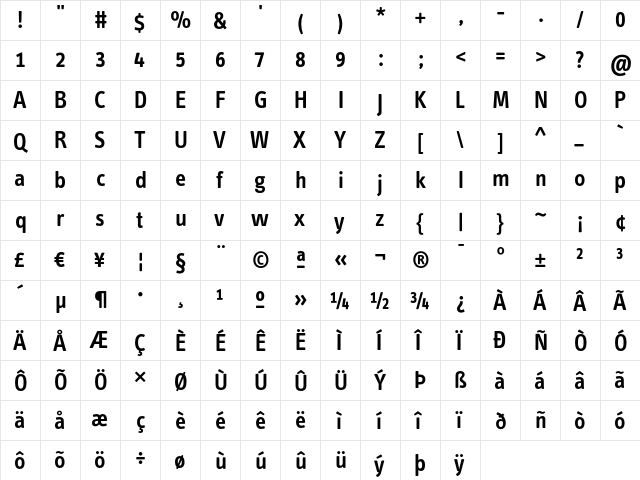
InfoTextSemiboldTf Roman Font Preview
InfoTextSemiboldTf Roman
InfoTextSemiboldTf Roman Font Details
Design Context for InfoTextSemiboldTf Typeface
InfoTextSemiboldTf takes a measured approach to typography — its balanced proportions and neutral character make it a reliable workhorse for both digital and print work. Its bold stroke weight gives it real presence on the page.
Pro Tip: Pair InfoTextSemiboldTf with a font of contrasting weight or personality to build a more expressive typographic hierarchy.